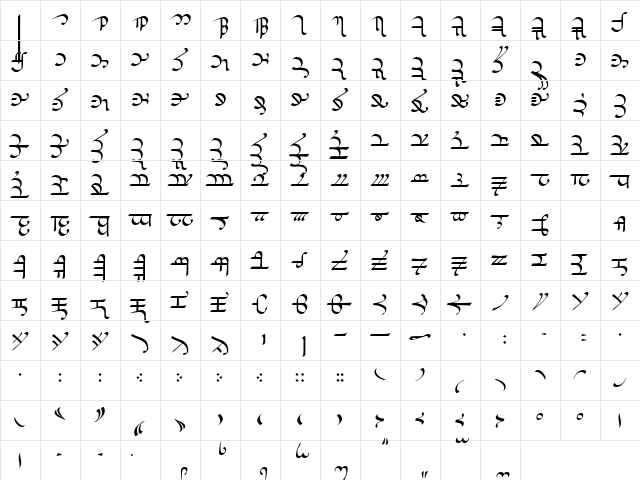
Sarati Eldamar Vertical BETA 3 Regular
Design Context for Sarati Eldamar Vertical BETA 3 Typeface
Sarati Eldamar Vertical BETA 3 is a composed and adaptable typeface that performs quietly and consistently across a wide range of design contexts.